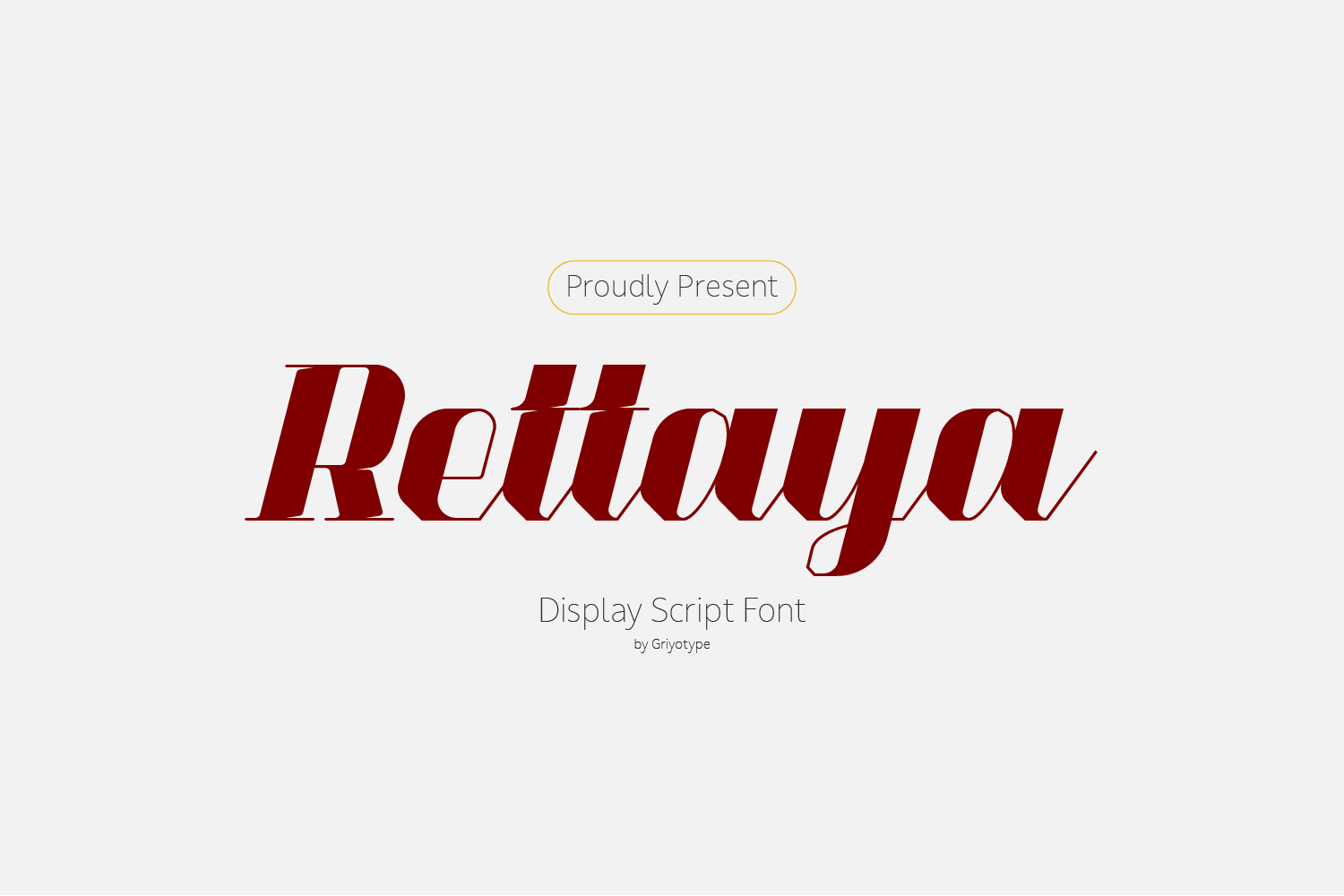
Rettaya - Display Script Typeface
Intorducing Rettaya a script display font! Rettaya has a strong character. this font perfect for logos, packaging, wedding layout and more.